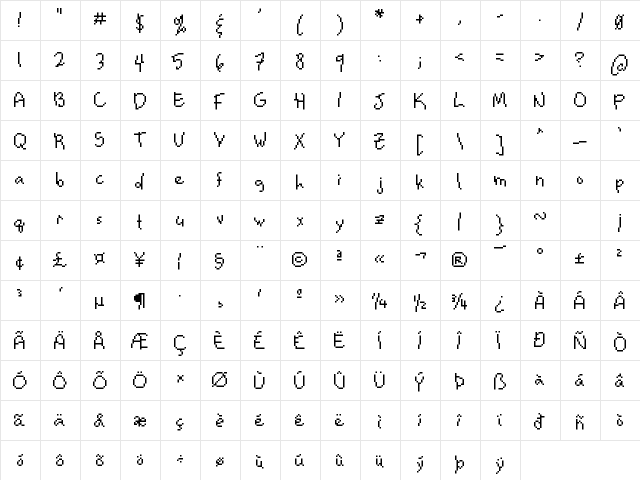
Notepen Medium
Design Context for Notepen Typeface
Notepen is a composed and adaptable typeface that performs quietly and consistently across a wide range of design contexts.